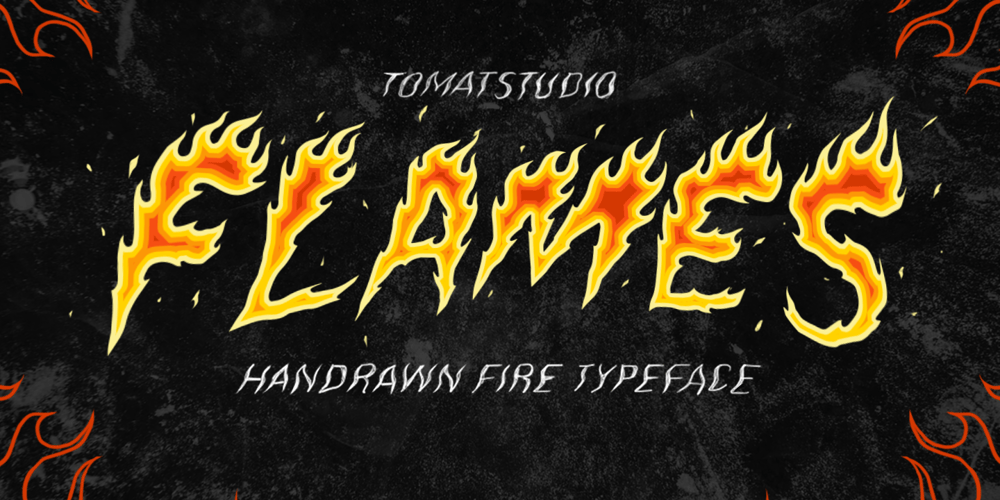
Flames Font Family was designed by Cipto Bagus Prakarso and published by Tomatstudio. Flames contains 1 styles and family package options. Flames specially handcrafted manually and digitalized with Wacom and photoshop. The detail of the fire shape is different each other because each letter crafted manually, make it very natural and rough in the same time.Perfect for automotive, horror and your rough style design. I create special letter ” ^ ” and ” * ” to make the fonts more life, check it out on the sample.Cheers!